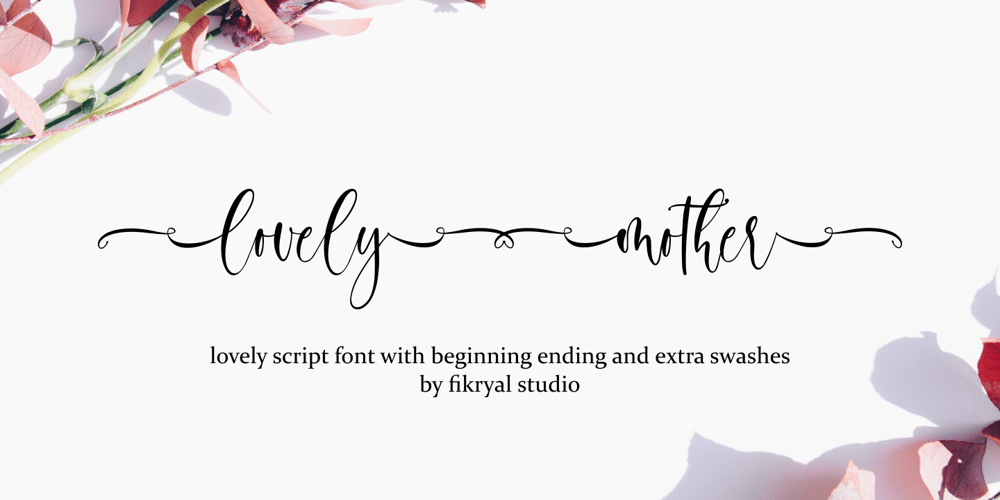
Lovely Mother Font Family was designed by Muhammad Fikry and published by Fikryal. Lovely Mother contains 1 styles and family package options. Lovely Mother is a beautiful calligraphy font perfect for crafting, branding, invitation, stationery, wedding designs, social media posts, advertisements, product packaging, product designs, label, photography, watermark, special events or anything.Lovely Mother comes with full set of uppercase and lowercase letters, swash alternates, ligatures, multilingual symbols, numerals and punctuation.